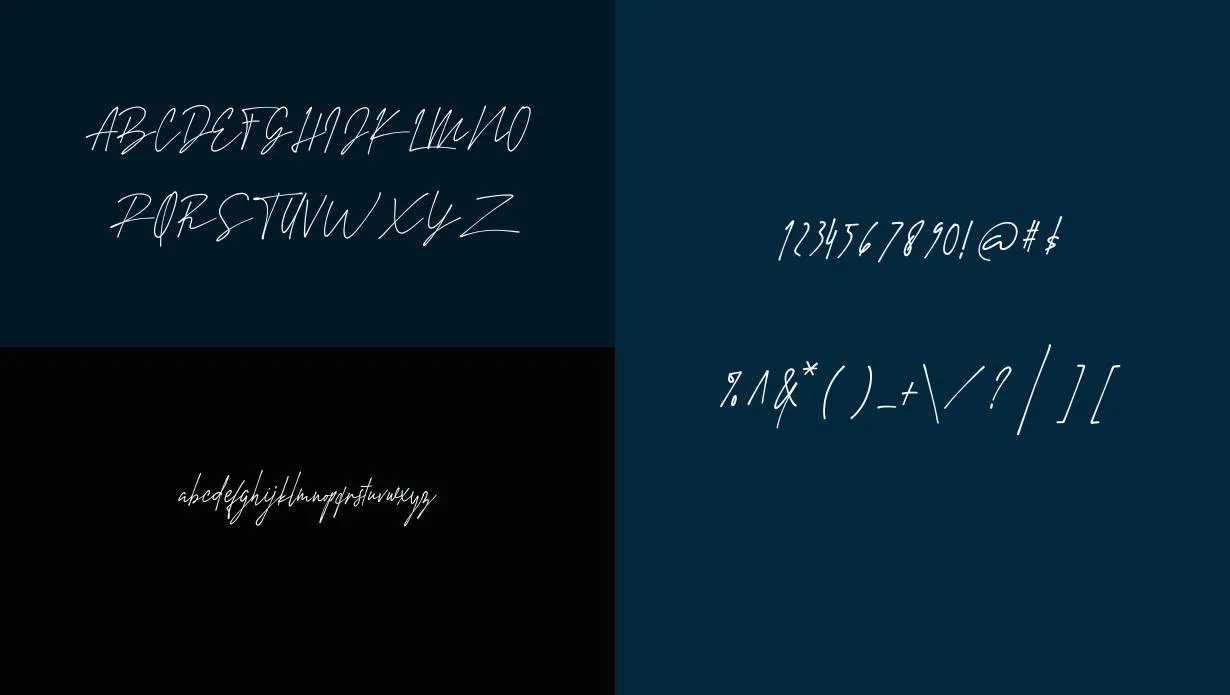
Amstirdam Handwritten Script Font is a relaxed and friendly script typeface with a natural flow. It’s often used for personal blogs, product packaging, and branding, creating an informal and approachable appearance in design.
Amstirdam Handwritten Script Font adds a touch of personal warmth and connection to design projects, making them relatable to the audience. It can be utilize with kaushan script font and make elegant projects.